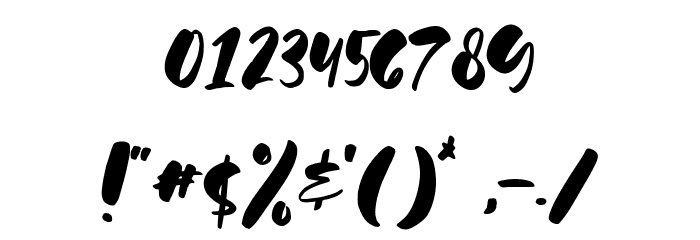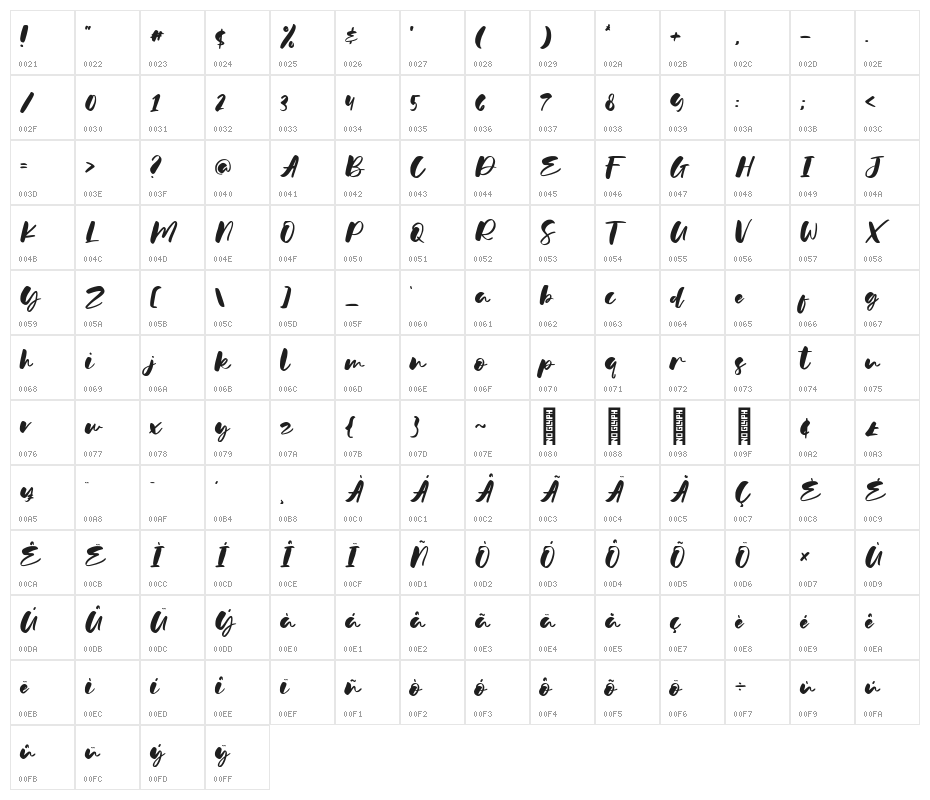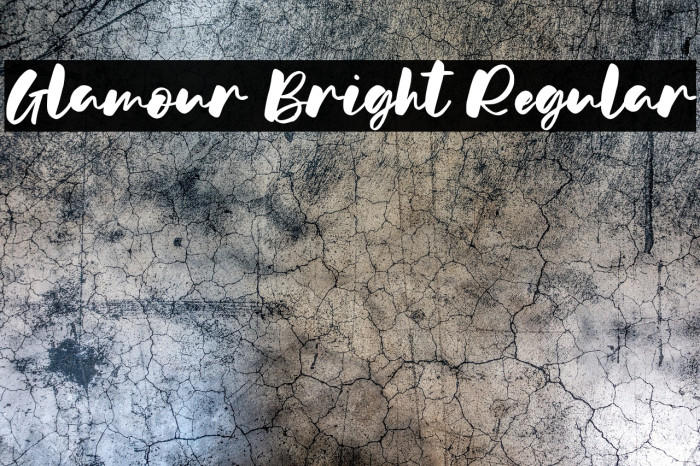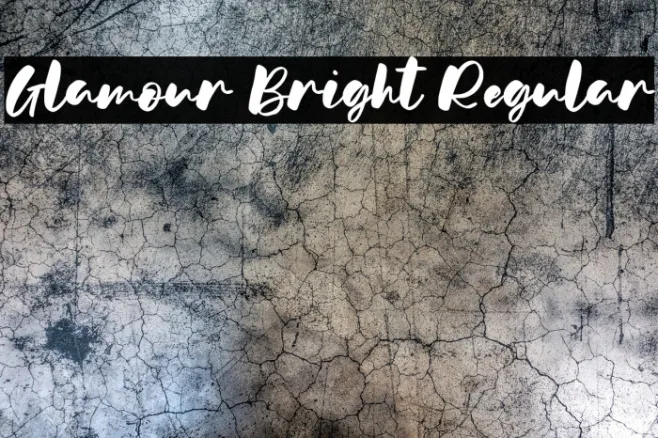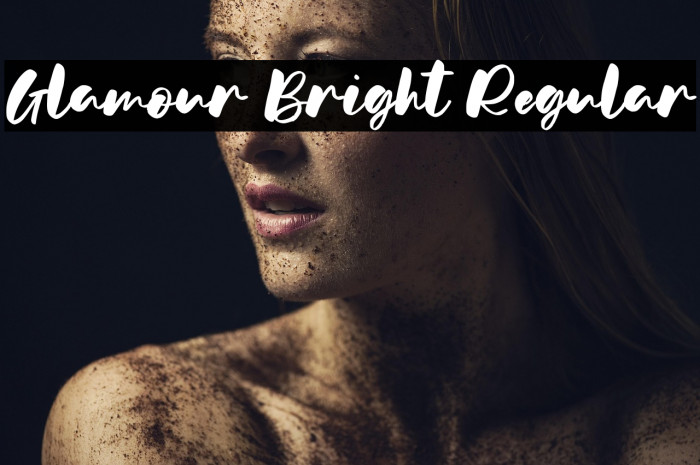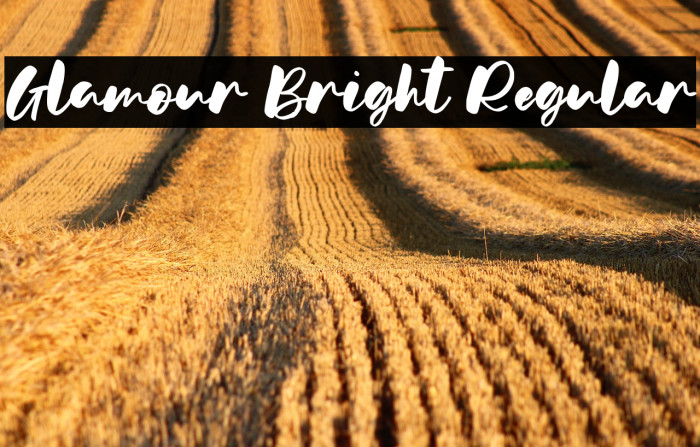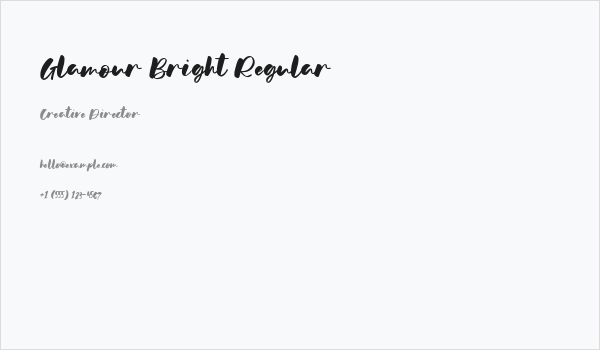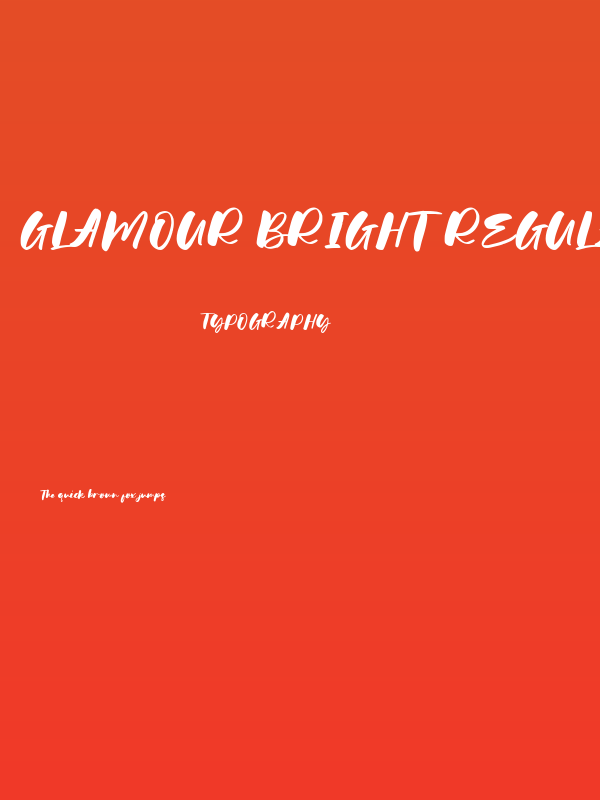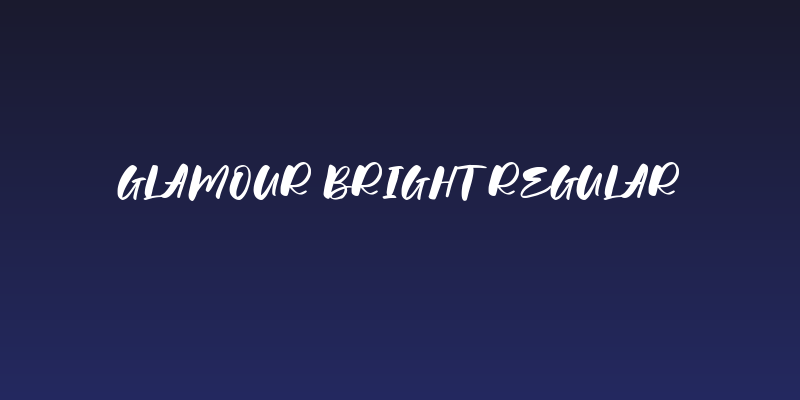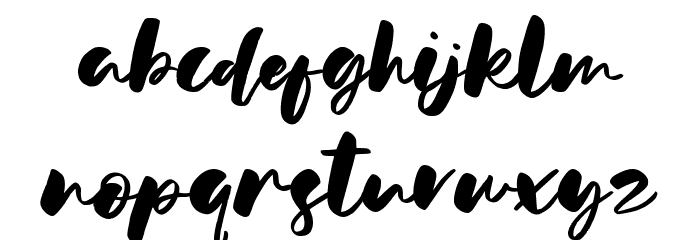
Glamour Bright Regular Font
Glamour Bright Regular Description
This font exudes a bold and dynamic presence with its brush script style, characterized by fluid, sweeping strokes that convey a sense of elegance and movement. The uppercase letters are particularly striking, with their dramatic curves and varying stroke widths, while the lowercase letters maintain a harmonious flow. The numerals and special characters complement the overall aesthetic, adding versatility to the font. Its handwritten appearance gives it a personal and artistic touch, making it suitable for creative and expressive projects.
| Proposed Projects | Ideal for branding, invitations, posters, and any design project that requires a touch of elegance and personality. |